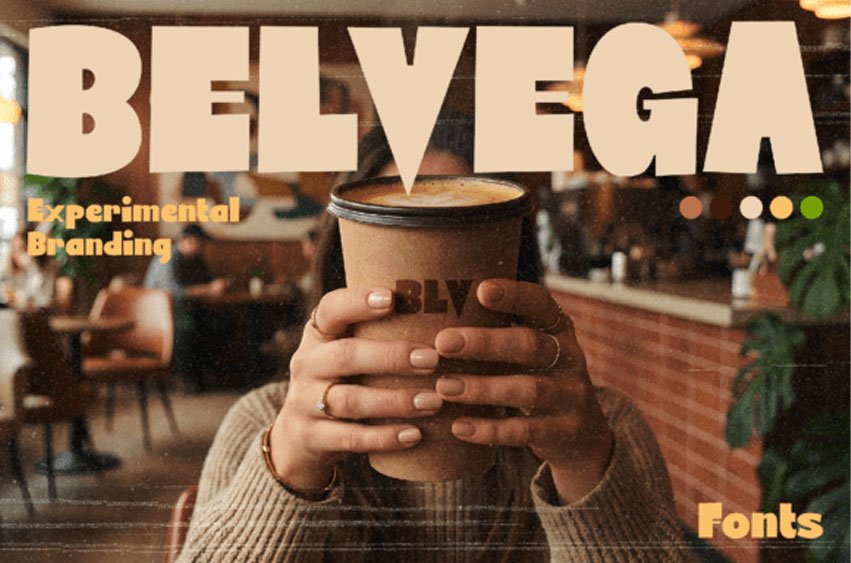
Belvega Font
Belvega Font Break the mold of traditional design with Belvega, an experimental branding font that redefines the ultra-bold aesthetic. This heavy, geometric display typeface features unconventional letterforms, such as its signature dagger-like “V,” that challenge the eye and command the room.
With its extreme weight and “modernist-brutalist” structure, Belvega is the premier choice for cutting-edge cafe branding, independent editorial mastheads, avant-garde fashion logos, and high-impact “concept-driven” social media headers.